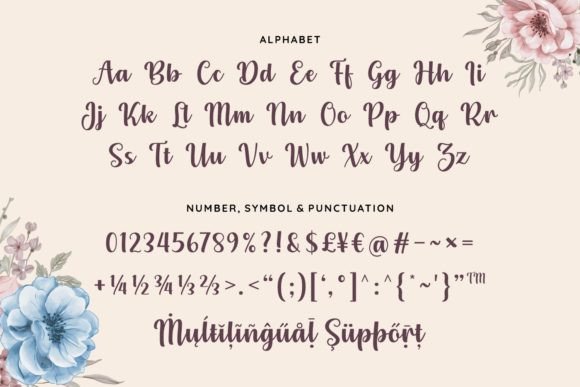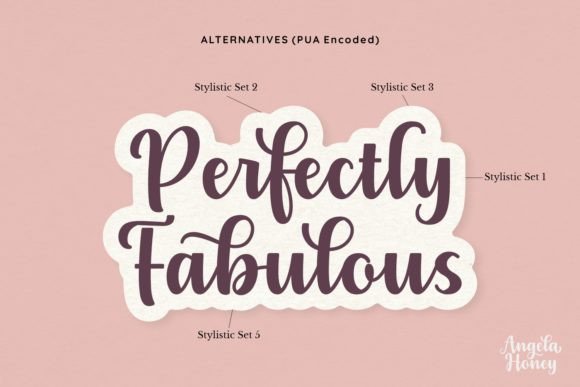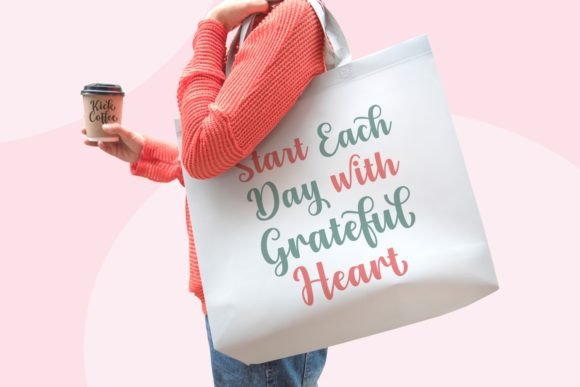
Introducing Angela Honey Font: Elevate Your Design with Beautiful Calligraphy
Are you looking for a font that can add a touch of elegance and playfulness to your design projects? Look no further than Angela Honey Font! This versatile calligraphy font is perfect for designers and crafters who want to create stunning visuals that stand out from the crowd. With its beautiful, smooth, and slightly playful lines, Angela Honey Font is sure to elevate your design to the next level.
What Makes Angela Honey Font Special?
Angela Honey Font is a PUA (Private Use Area) encoded font, which means that you can access all of the glyphs and swashes with ease. This feature makes it incredibly easy to use and customize, even for those who are new to font design. Whether you’re creating a logo, branding materials, or social media graphics, Angela Honey Font provides the perfect combination of style and flexibility.
Key Features of Angela Honey Font
- Beautiful Calligraphy Style: Angela Honey Font boasts a stunning calligraphy style that is both elegant and playful. Its smooth lines and flowing curves make it perfect for creating eye-catching designs.
- PUA Encoded: With PUA encoding, you can access all of the glyphs and swashes with ease, making it simple to customize and use.
- Versatile: Angela Honey Font is perfect for a wide range of design projects, from logos and branding materials to social media graphics and more.
- Elegant and Playful: This font combines elegance and playfulness, making it perfect for designers who want to create unique and eye-catching designs.
Why Choose Angela Honey Font?
There are many fonts available for designers and crafters, but Angela Honey Font stands out from the rest. Here are just a few reasons why:
- Unique Style: Angela Honey Font offers a unique and distinctive style that will set your designs apart from the crowd.
- Ease of Use: With PUA encoding, Angela Honey Font is incredibly easy to use, even for those who are new to font design.
- High-Quality Design: This font is designed with high-quality and precision, ensuring that it looks great in any design project.
- Perfect for Designers and Crafters: Angela Honey Font is perfect for both designers and crafters who want to create stunning visuals that showcase their creativity.